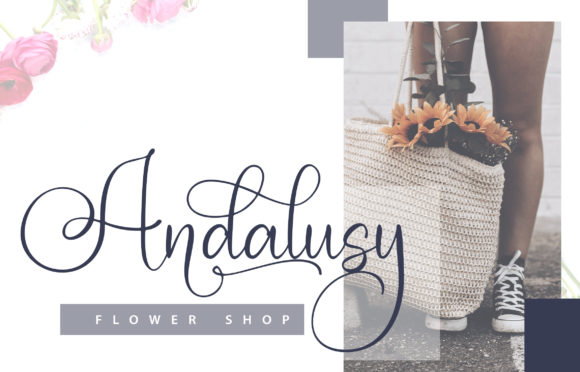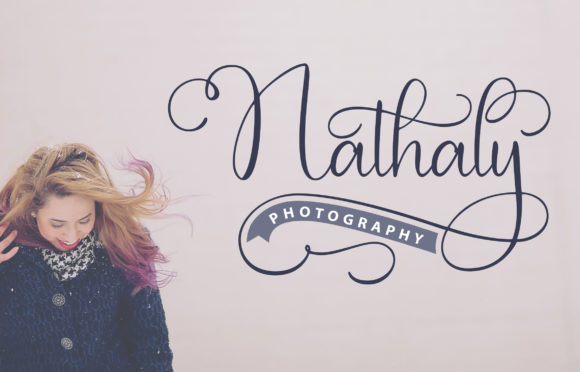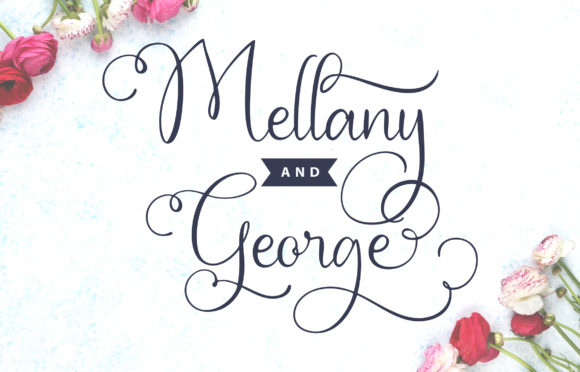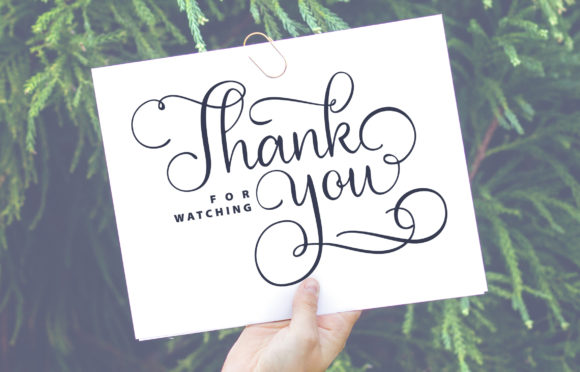
Introduction to Plamiya Font
Have you ever been working on a creative project and felt like your design was missing that special something? The perfect touch that sets it apart from the rest? That’s exactly what the Plamiya Font is designed to provide. With its exquisite handwritten style, this font is the ultimate design resource for any project that needs a little extra love and care.
Whether you’re designing a wedding invitation, a thank you card, or a logo for your business, the Plamiya Font is sure to bring a touch of elegance and sophistication to your work. And the best part? It’s incredibly versatile, making it perfect for a wide range of creative projects. From free downloads to high-quality prints, this font is a valuable asset for any designer looking to elevate their designs.
Key Features of Plamiya Font
- Unique characteristics: Plamiya Font features a distinctive and elegant design, with intricate details and a touch of sophistication.
- Perfect for use in a variety of creative projects, including branding, packaging, and editorial design.
Honest Review: Plamiya Font
I recently stumbled upon the Plamiya Font while searching for free design resources for my creative project. I was impressed by the high quality and unique aesthetic of this font.
What works well for the Plamiya Font is its versatility in various design applications. It’s perfect for creating eye-catching headings and can also be used for body text. The font has a transparent background, making it easy to use in both light and dark color schemes.
Some of the key features of the Plamiya Font include:
- Great for creative projects
However, I noticed that the Plamiya Font may not be suitable for all types of design projects, especially those that require a more formal tone. ⚠️ Its unique style may not be suitable for corporate or business applications.
Overall, I’m impressed with the Plamiya Font and would recommend it for creative projects where a high-quality, unique font is needed. ✨ With its transparent background and free download option, it’s a valuable addition to any designer’s resource library.